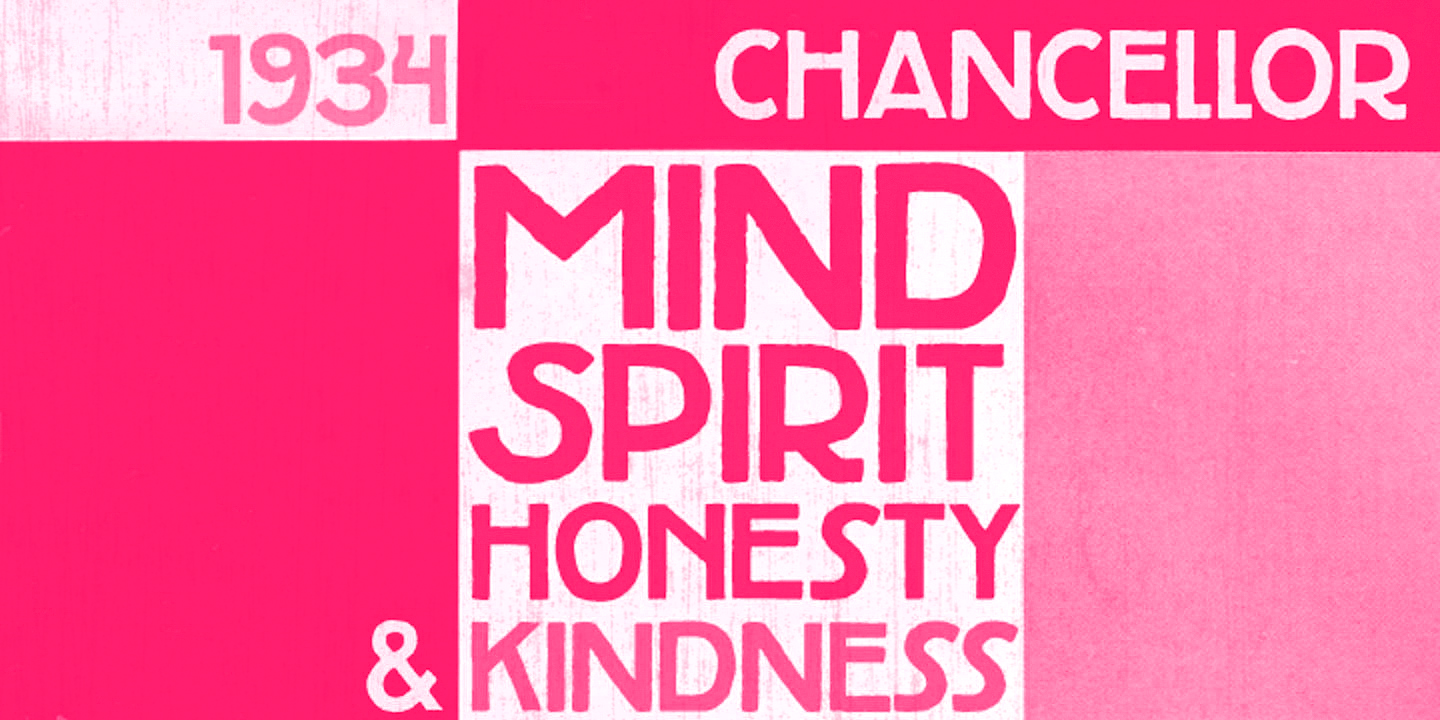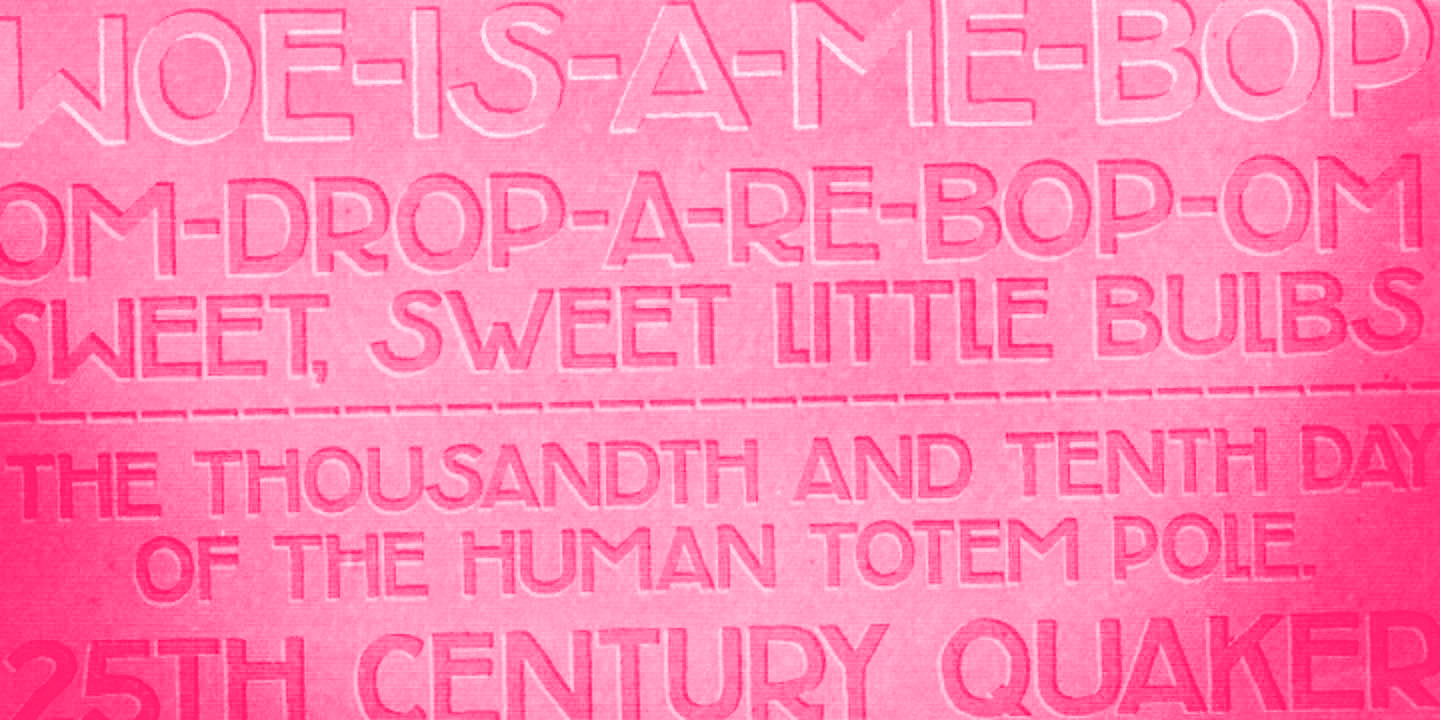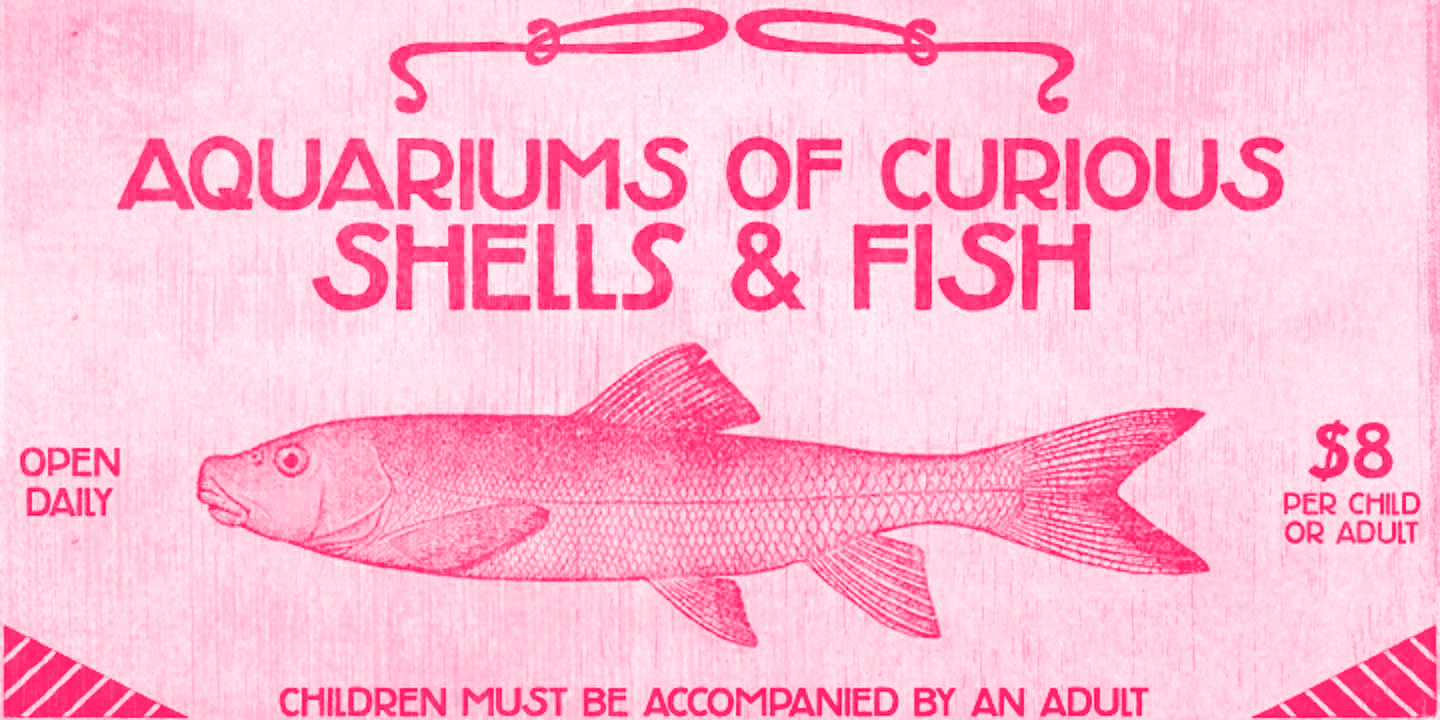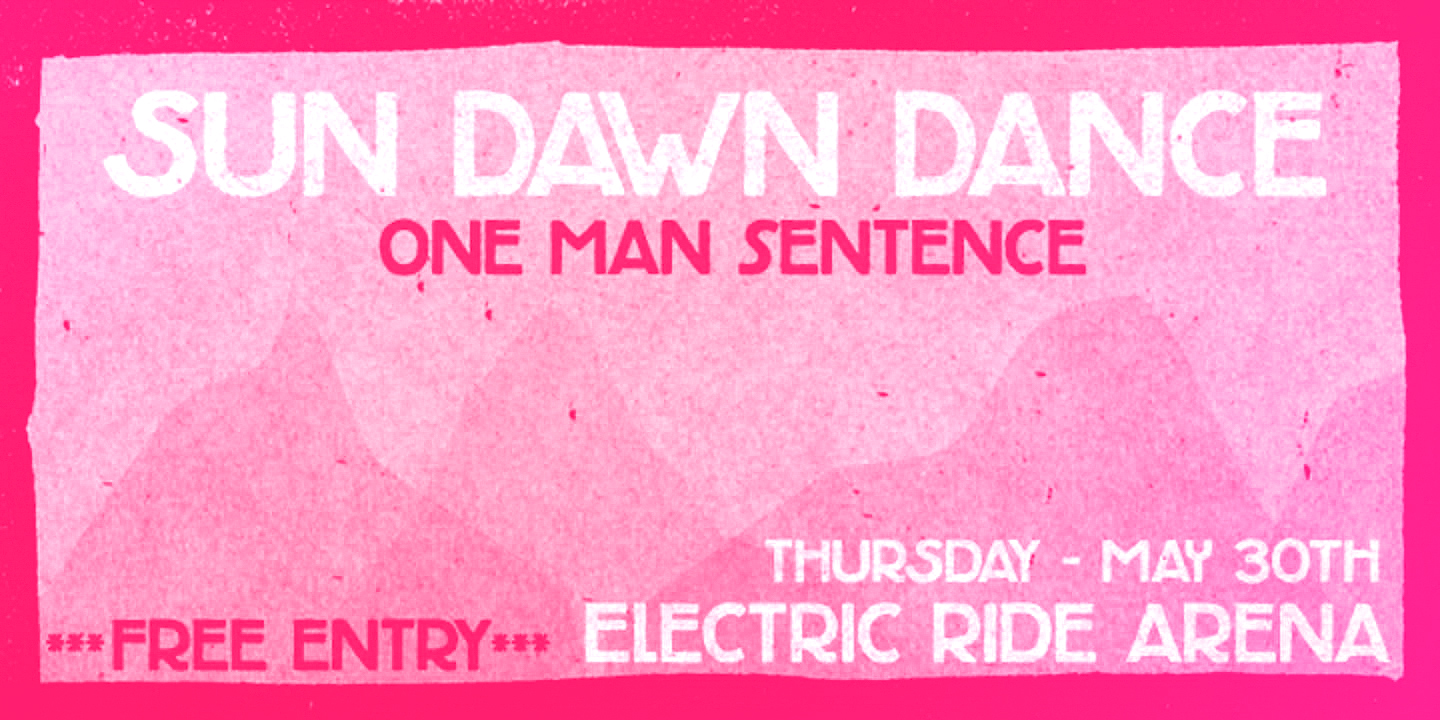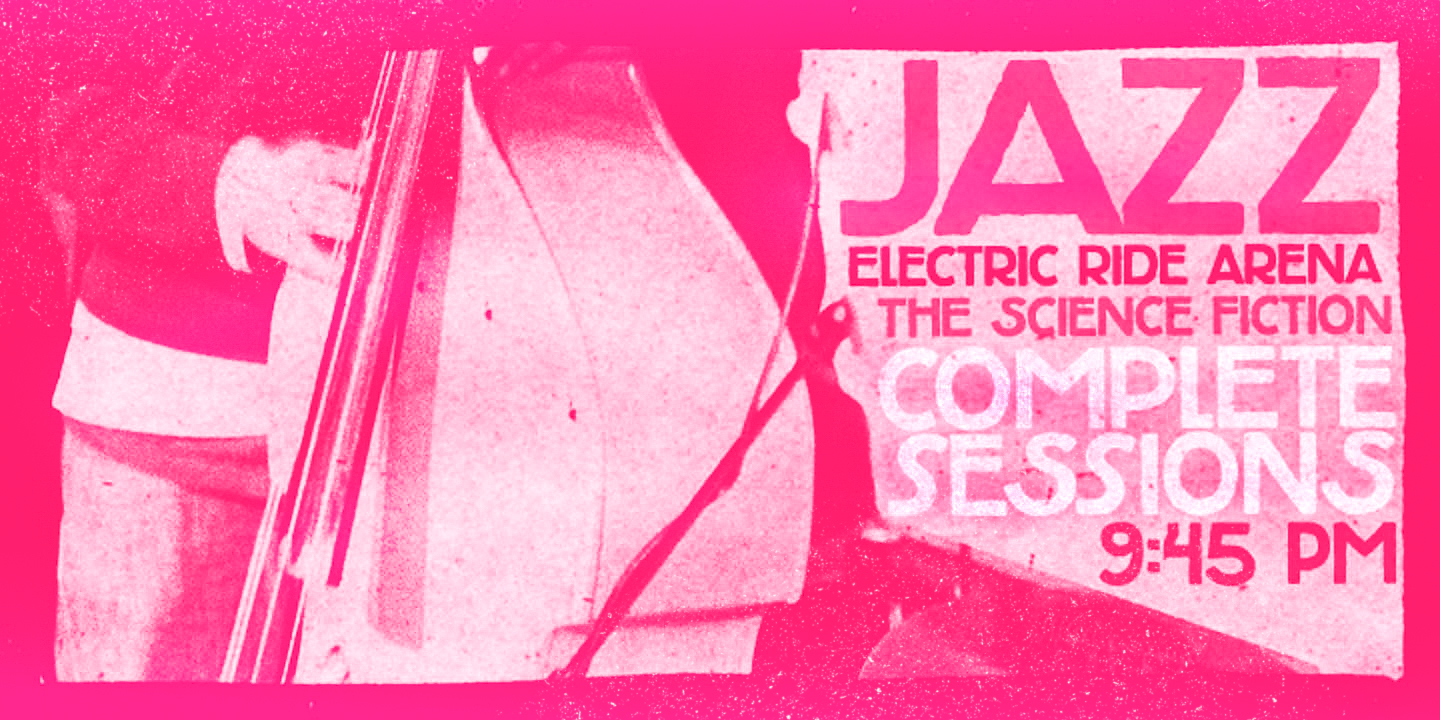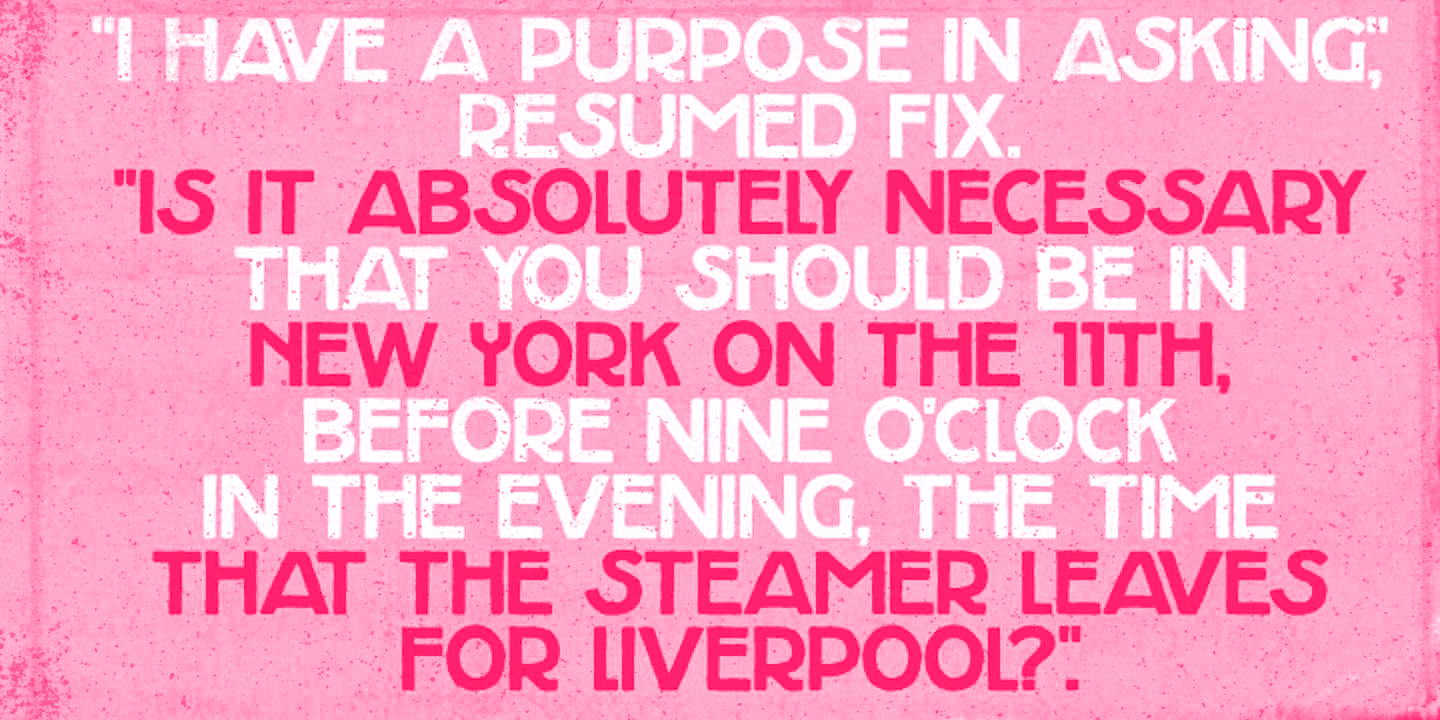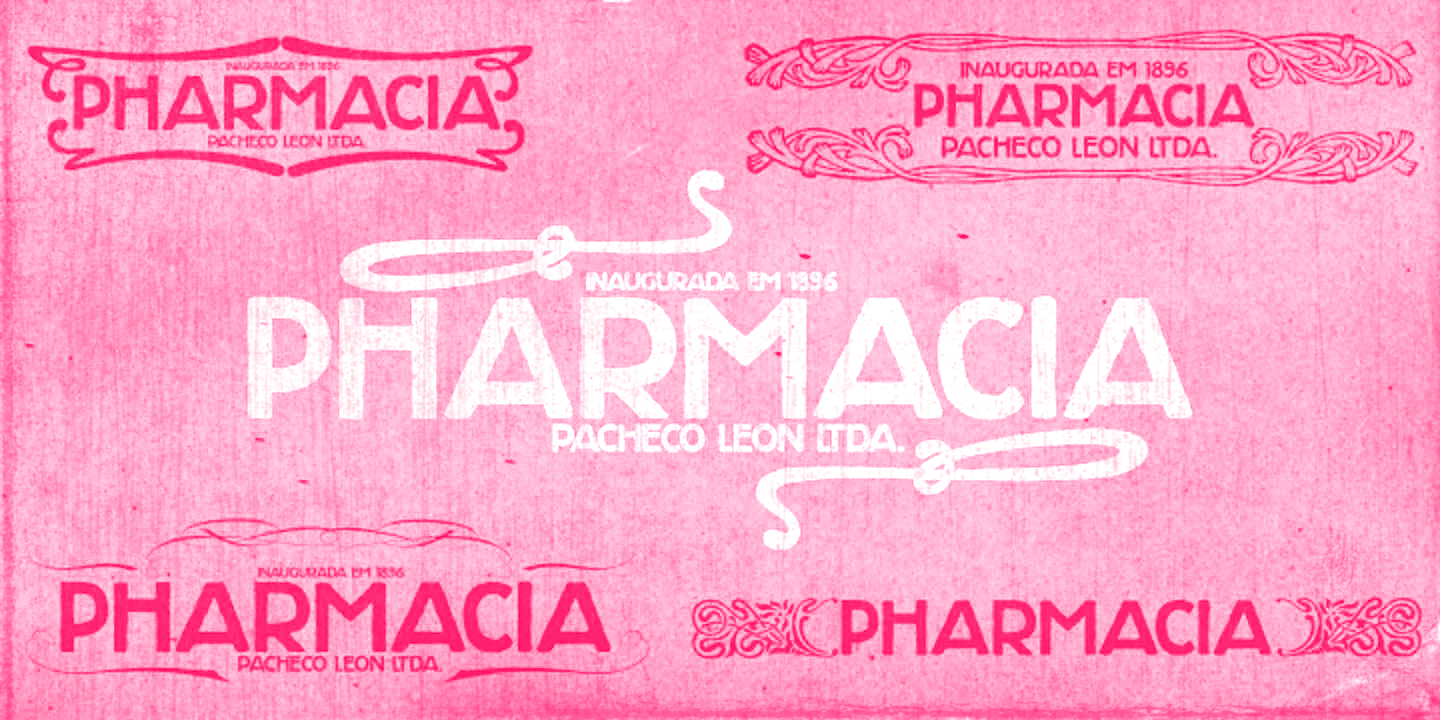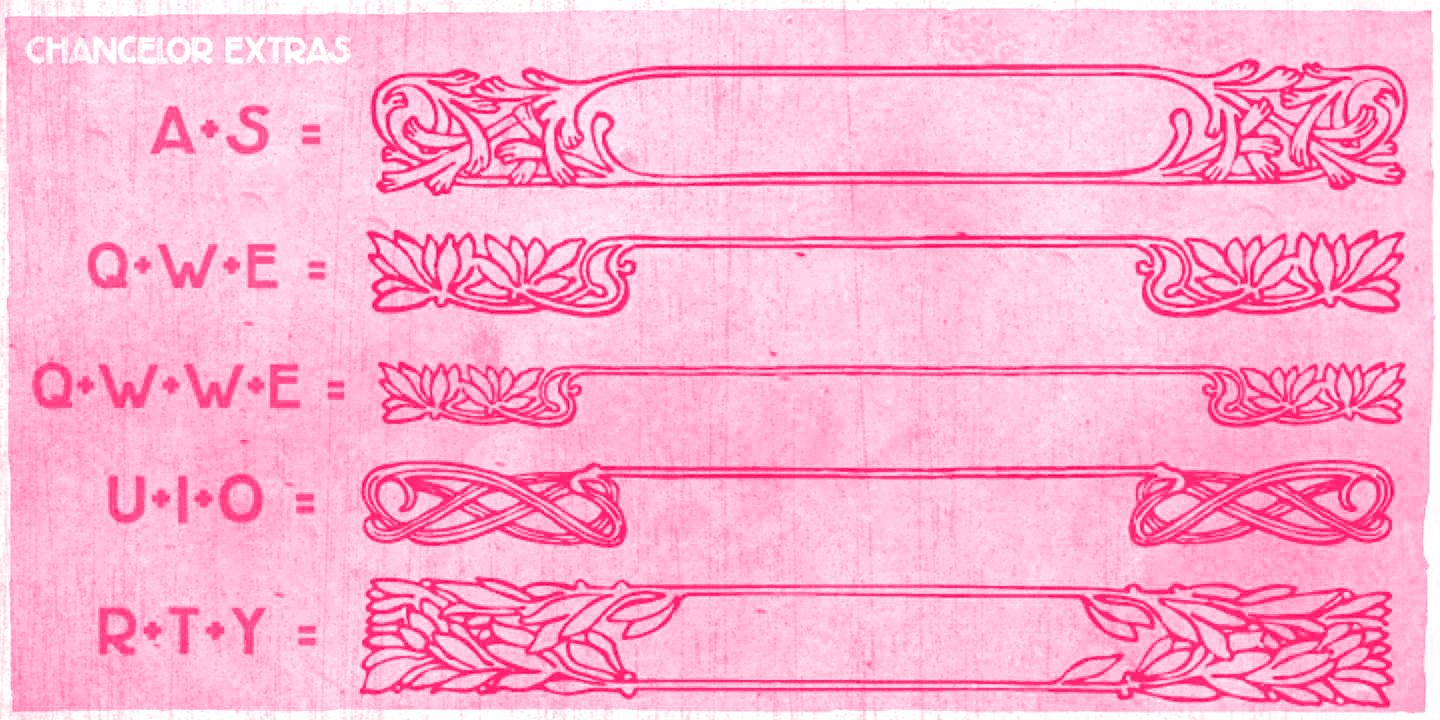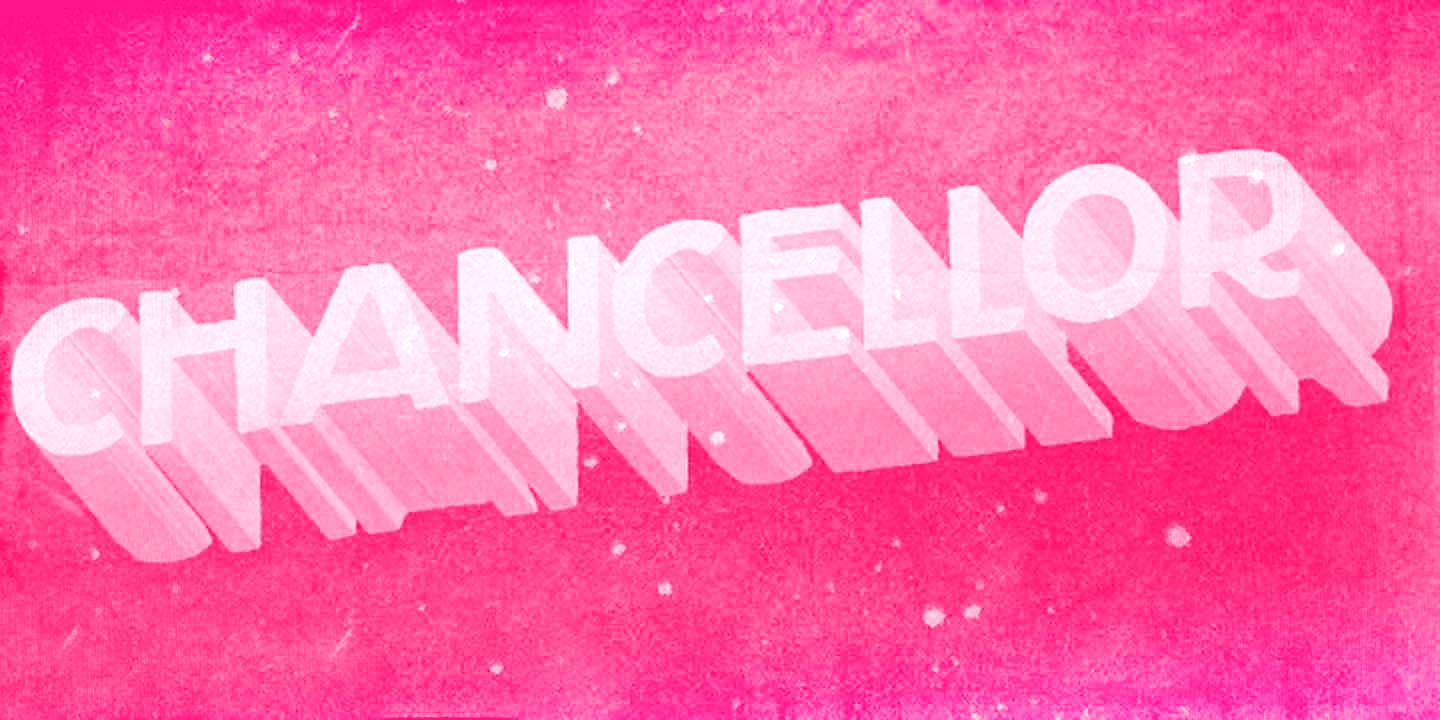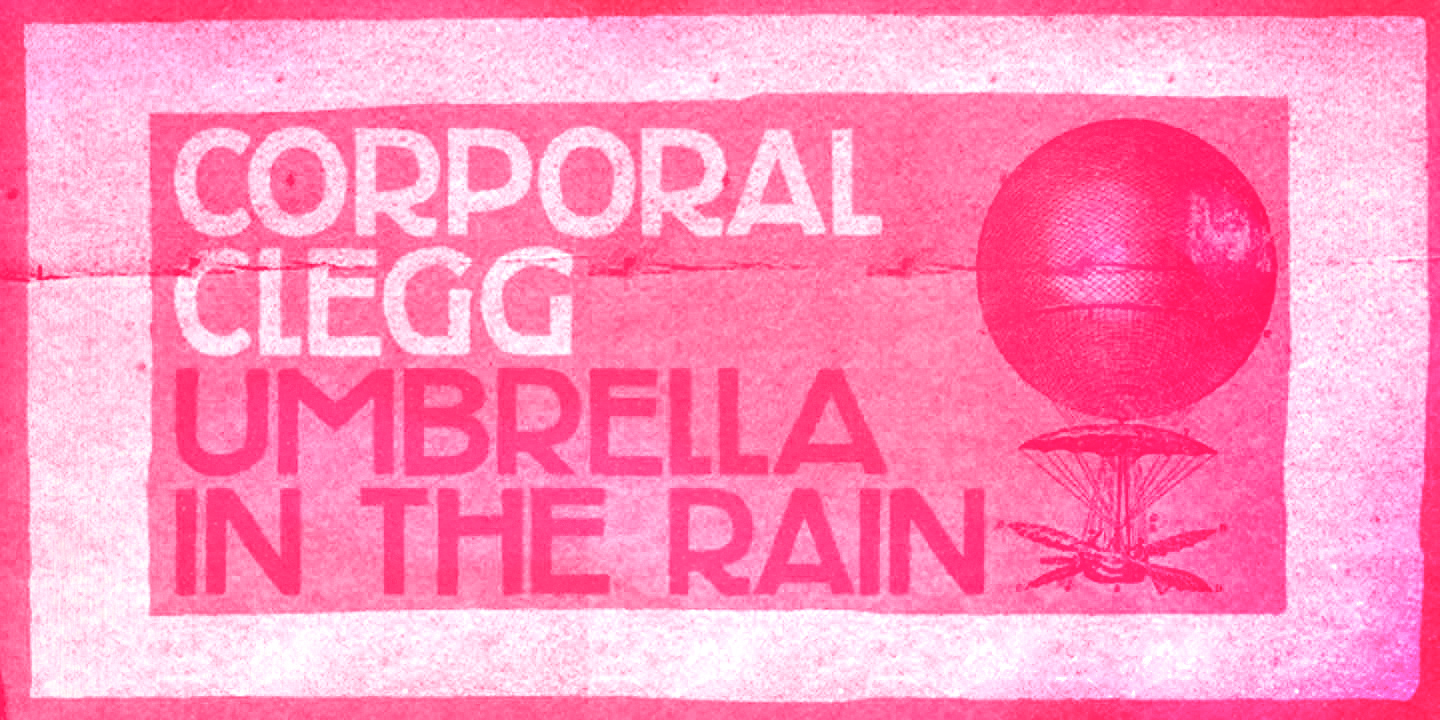
Chancellor
Chancellor Extras
Chancellor Medium
Chancellor is a robust hand-drawn design. Its sturdy letterforms take inspiration from Plakatstil-era posters, bringing up cool adornments to spice up your lettering designs. This all-caps typeface has two versions for each letter, amplifying your composition choices. A great tool for creative display uses.